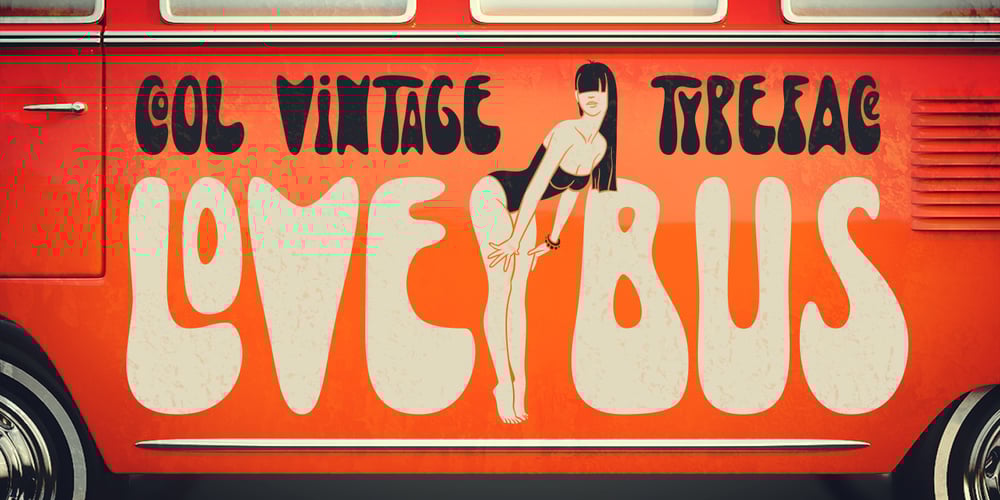
Lovebus Font Family was designed by Gleb Guralnyk and published by Gleb Guralnyk. Lovebus contains 1 styles and family package options. Hello! Introducing vintage hippie style font “Lovebus”. It has smooth authentique design and 26 automatically replaceable ligatures to make your text more original.